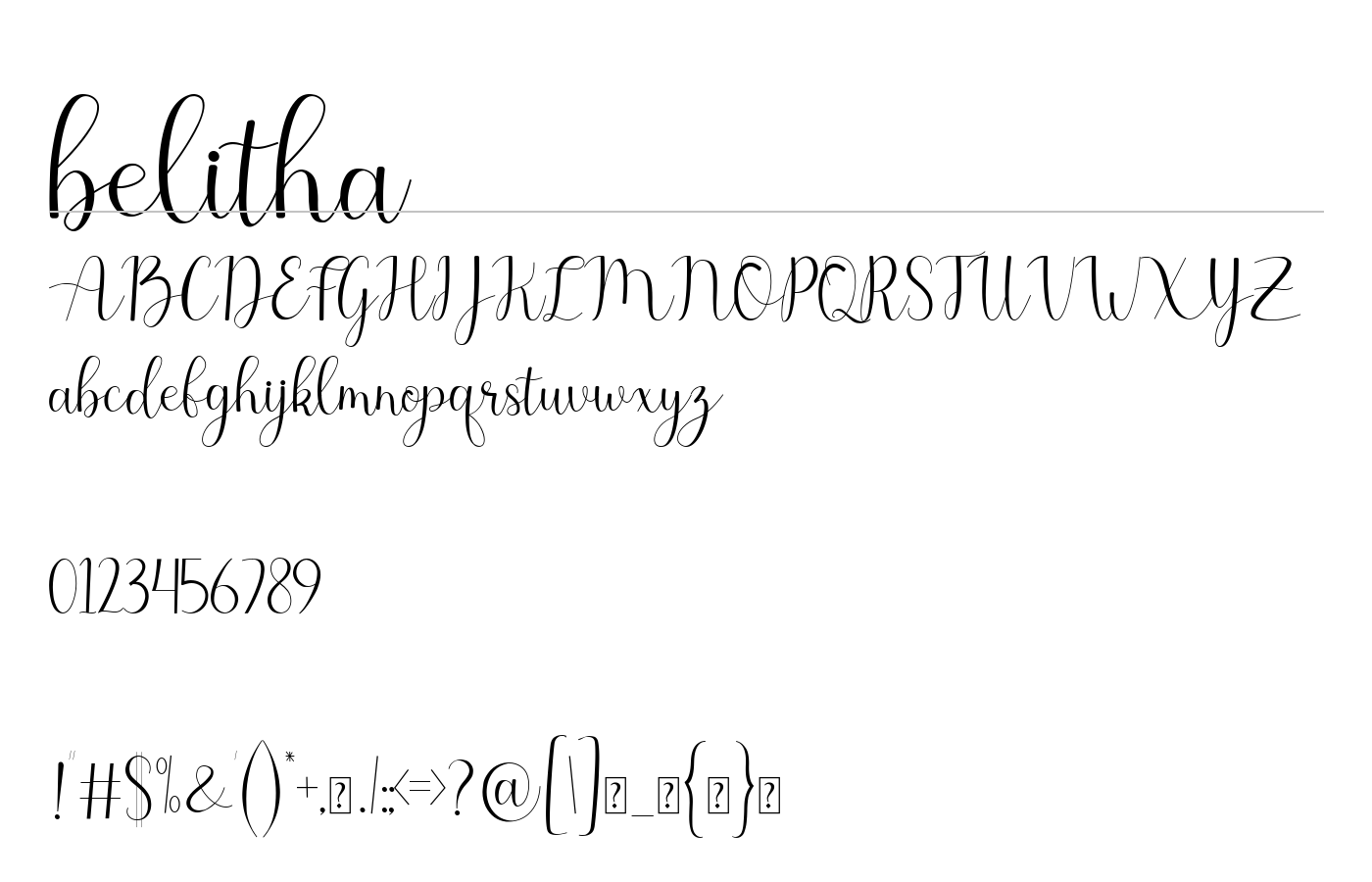
Belitha is a delicate, elegant script font characterized by thin, flowing strokes and graceful, slightly playful letterforms. Its high contrast and tall x-height give it a refined yet approachable style perfect for invitations, fashion branding, and sophisticated logos. This font shines in decorative uses where a touch of charm and femininity is desired.